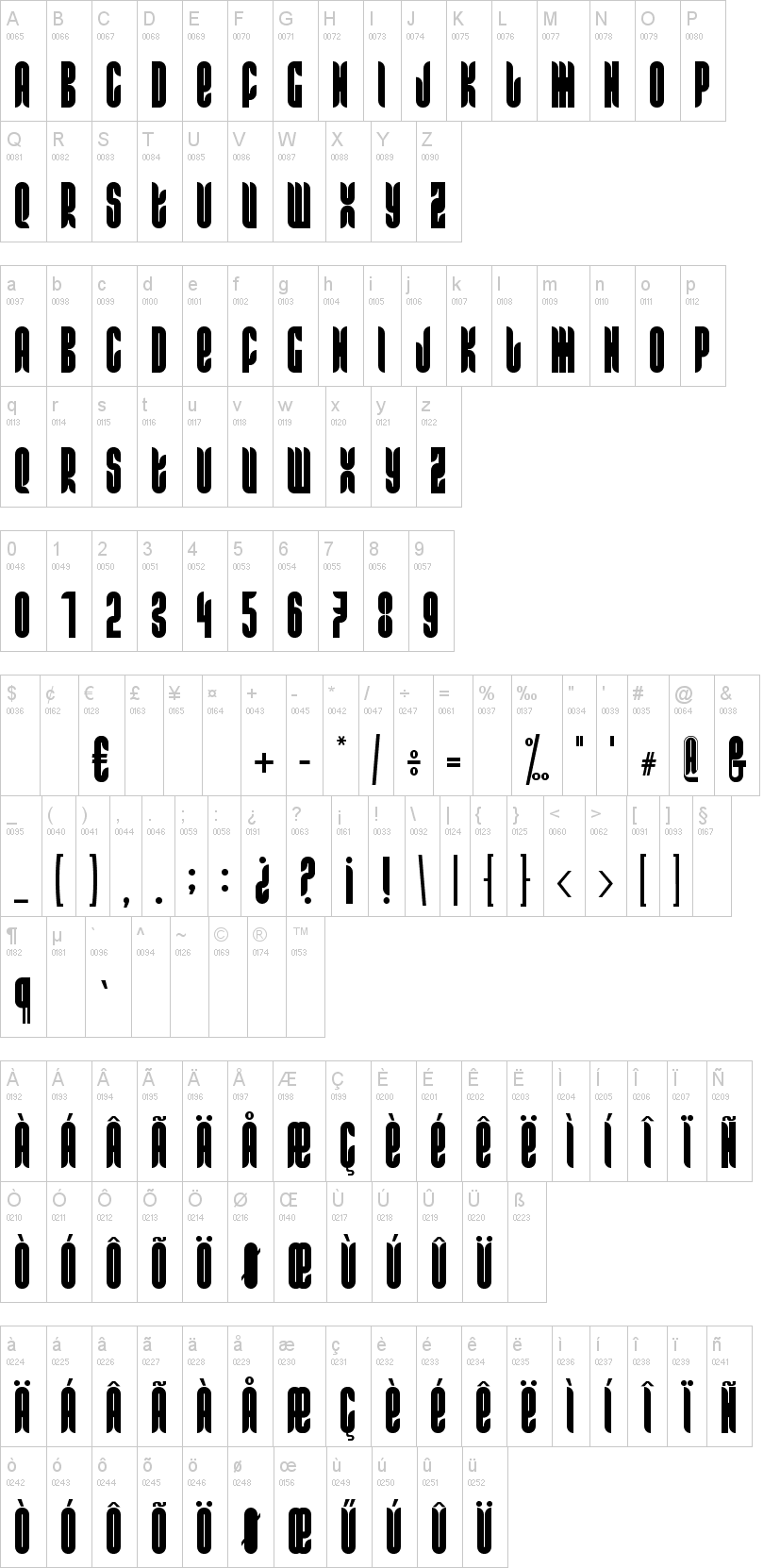
Шрифт FR Rama Nous
FR Rama Nous was an early typeface
design based on a 2x6 grid.
It was done, then forgotten, found, re-think, re-drawn and forgotten again. Now it was found again and finished. It has more than 310 glyphs - still some vital parts would missing. If so: please let me know and I'll be happy to add and element neccessary.